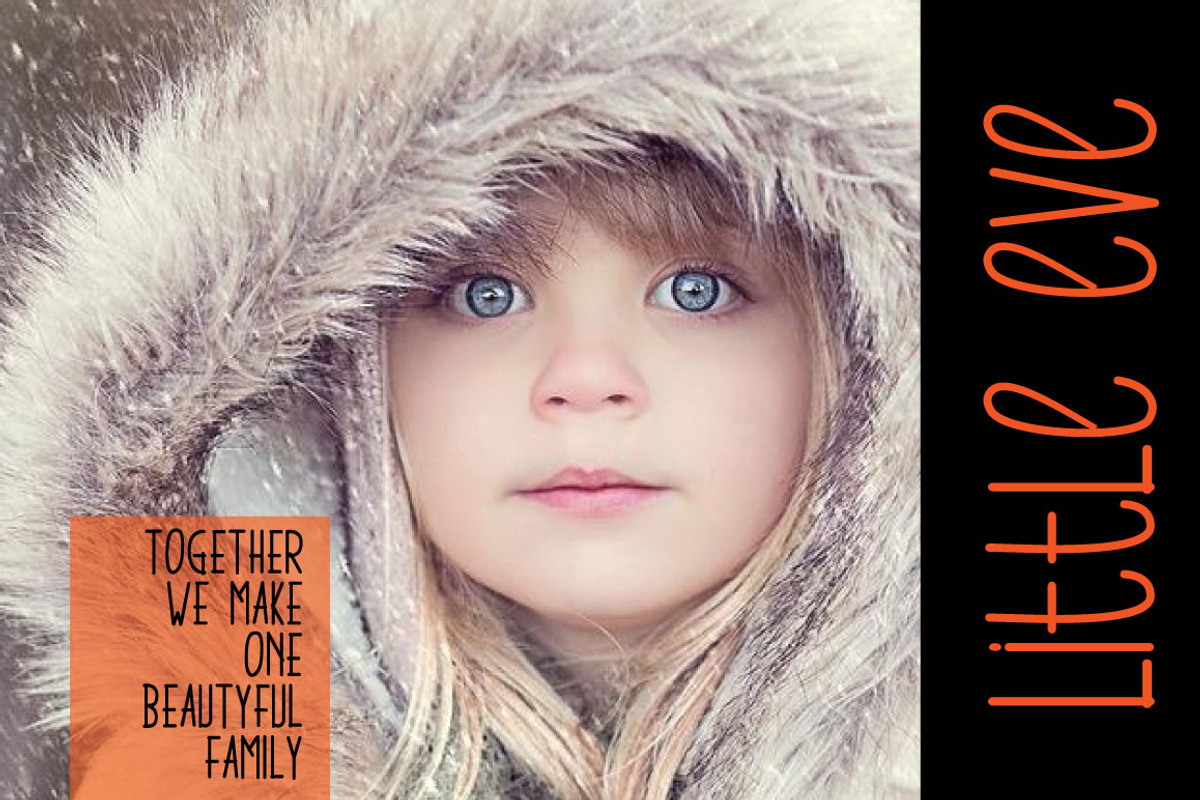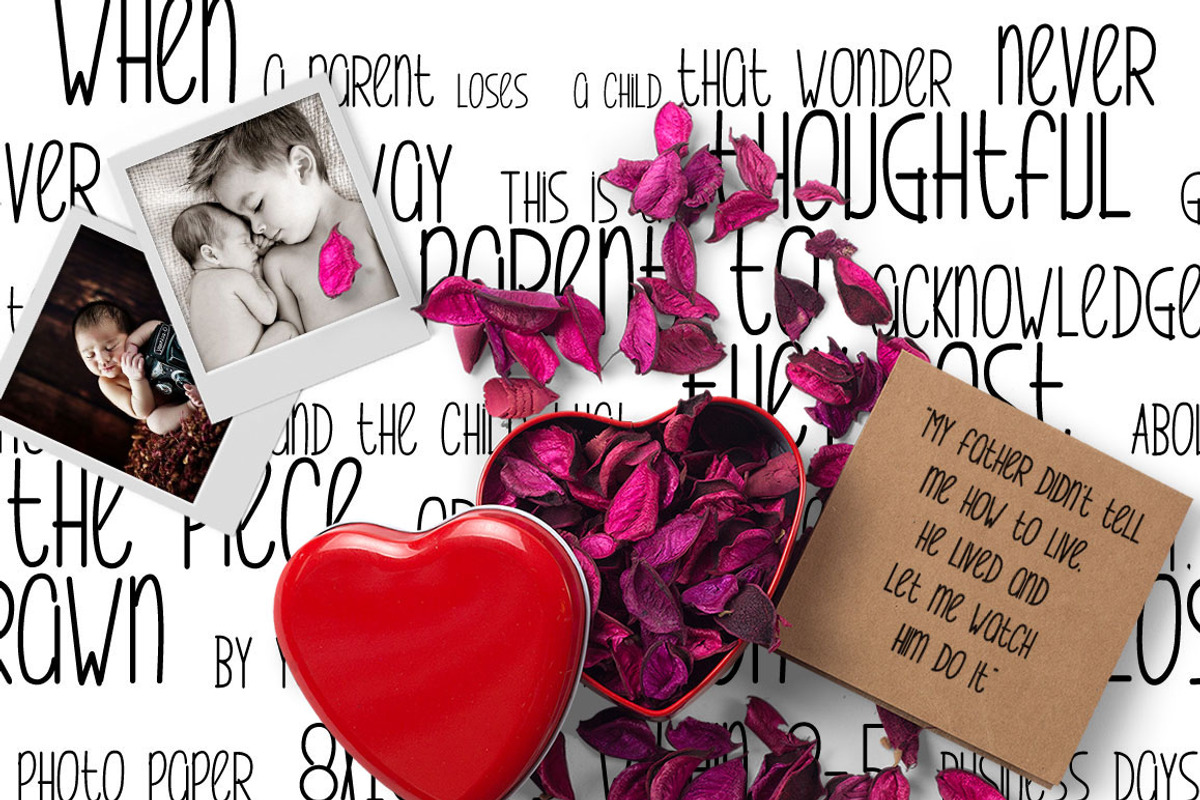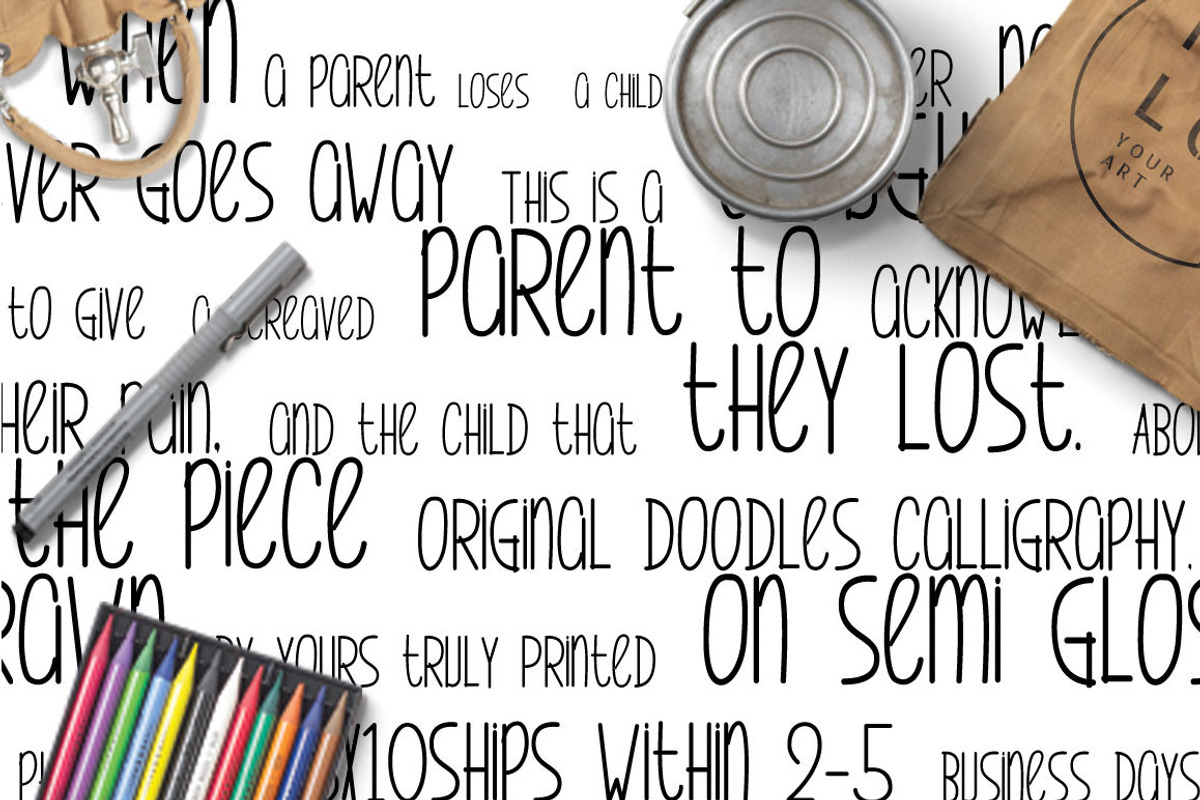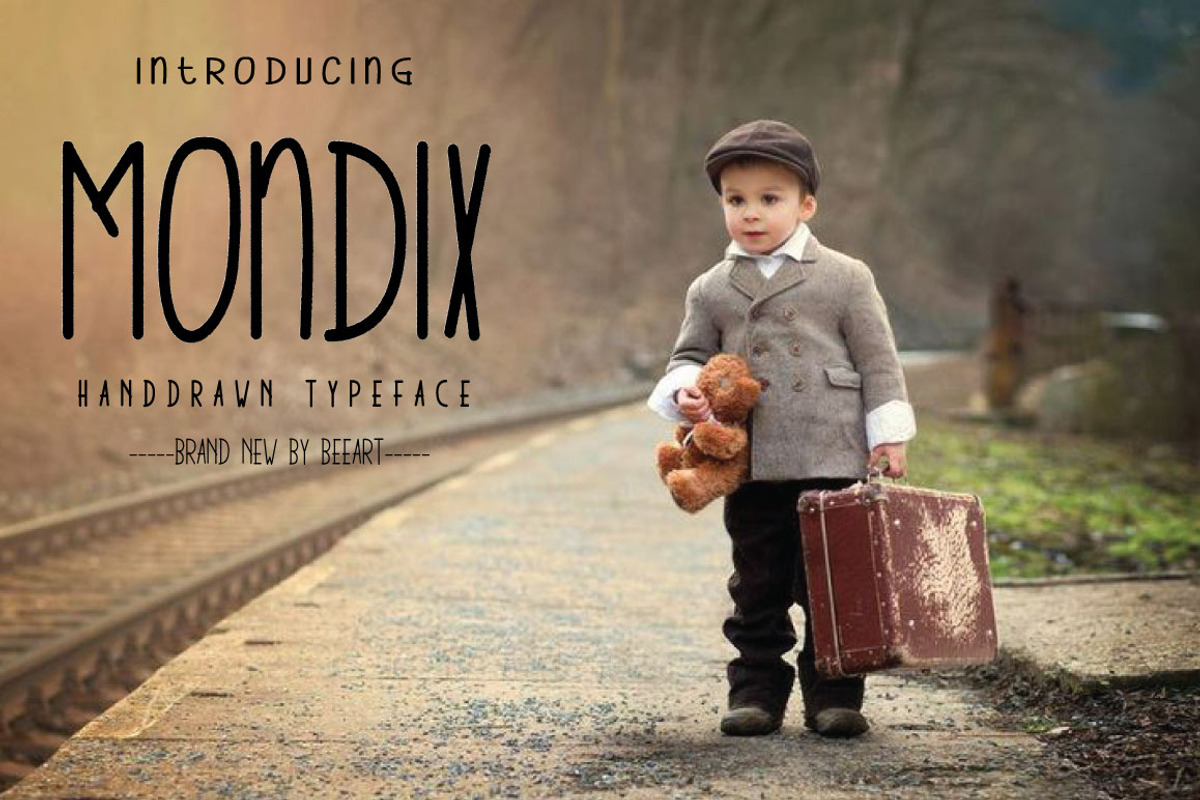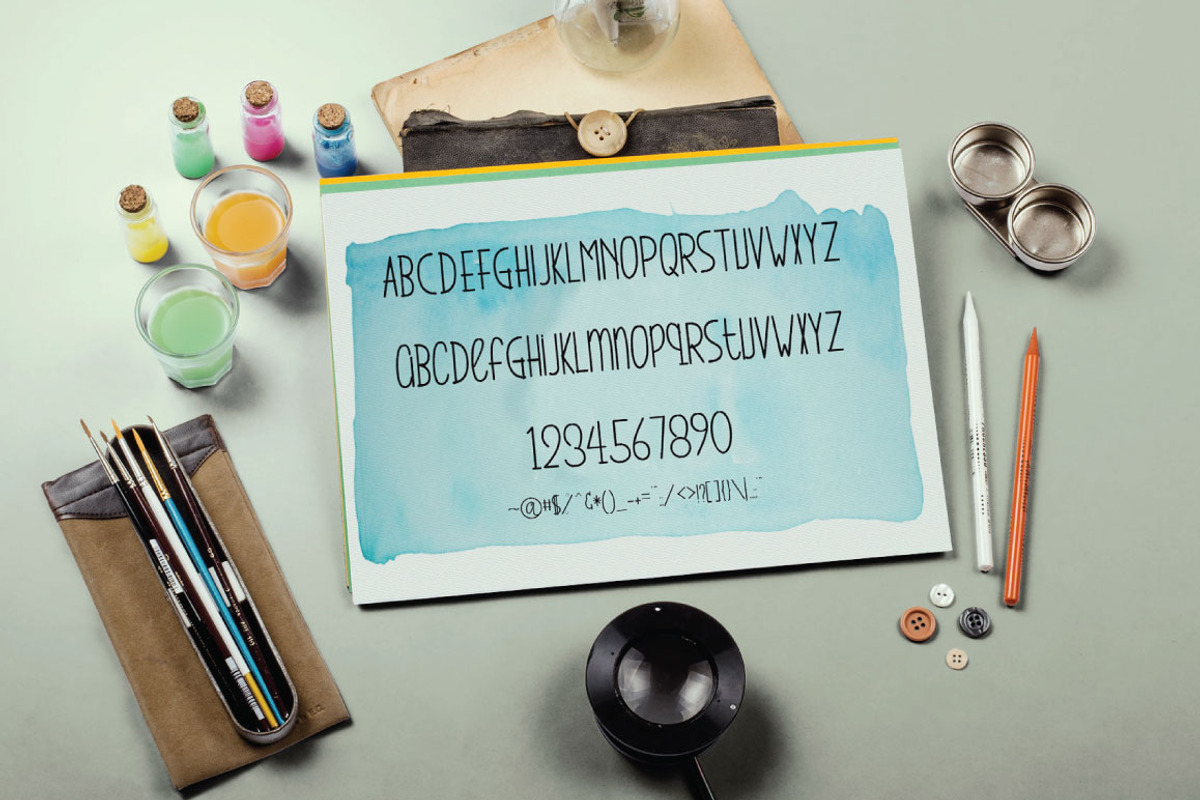
Mondix Typeface
Mondix Typeface by beeART is a font selected for branding, posters, packaging, typography.
Why Mondix Typeface is worth a look
Mondix Typeface by beeART fits naturally into Branding, posters, packaging, typography.